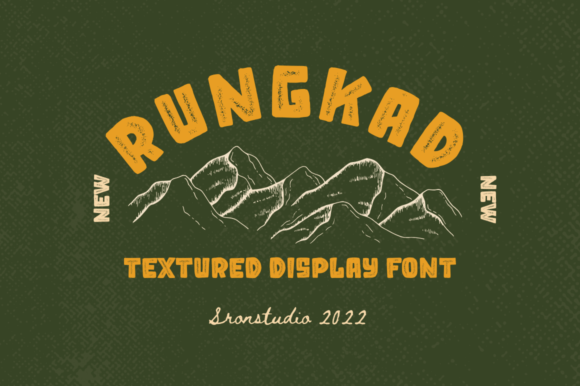
Unleash the power of Rungkad, a textured display font that captures the essence of ruggedness and authenticity. Crafted with meticulous attention to detail, each letter exudes a raw, natural charm that evokes the allure of untamed nature.
Immerse yourself in the captivating allure of Rungkad. Its rough texture whispers tales of adventure, inviting you to explore the untamed corners of your imagination. With its vintage undertones, Rungkad transports you to a bygone era, where the allure of the wild held sway.
Tailored specifically for outdoor apparel, Rungkad seamlessly blends with the rugged fabrics and vibrant hues of hiking gear, camping essentials, and mountaineering equipment. Its bold presence commands attention on merchandise, emblazoning logos and slogans with an unforgettable impact.
Envision your event posters adorned with Rungkad's captivating charm. Its bold strokes and rugged texture add a touch of intrigue, hinting at the allure of uncharted territories and the thrill of adventure that awaits.
For movie enthusiasts, Rungkad provides a tantalizing canvas to express the raw emotions and untamed spirit of cinematic masterpieces. Whether crafting titles, credits, or captivating posters, Rungkad's evocative texture adds an irresistible layer of depth and authenticity.
Embrace the untamed spirit of Rungkad today. Let its rugged charm ignite your creativity and empower you to craft designs that resonate with the untamed soul. Its endless versatility beckons you to explore the uncharted realms of imagination, where ruggedness meets refinement, and the call of the wild echoes through every stroke.